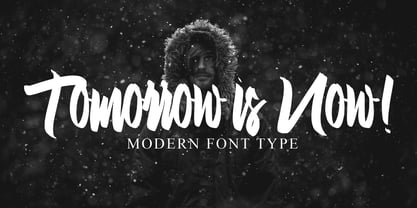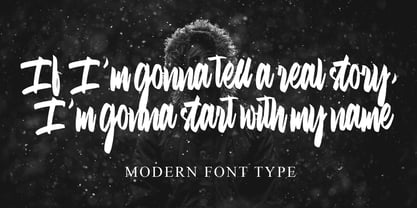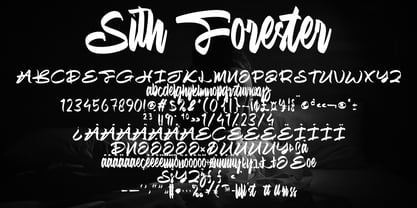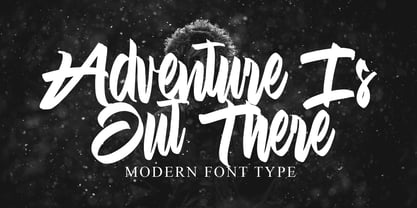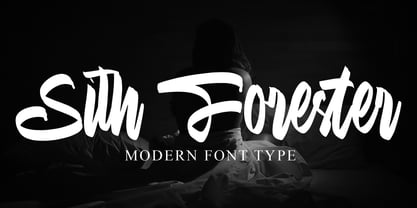
Sith Forester
by Ayska
The Sith Forester Font Family was designed by Dhoni Trihatmoko and published by Ayska. Sith Forester contains 1 styles. More about this family
Dive into the captivating universe of Sith Forester, a remarkably distinctive font that harmoniously merges contemporary refinement with age-old allure of classic calligraphy. Sith Forester radiates an understated elegance, positioning itself as an imperative aesthetic companion for diverse creative quests. Allow Sith Forester to invigorate your blog content, endowing them with enthralling legibility, imbue your digital planner interfaces with a novel edge, transform your event invitations into captivating visual journeys, or infuse a splash of vibrancy into your artisanal greeting cards. Explore the boundless grace and magical hues of Sith Forester, carefully watching as it injects a new vivacity into your carefully curated photo collections or personalized decor items. Sith Forester mirrors the incredible knack of converting mundane digital designs into visually arresting narratives. Enrich your creative tasks with Sith Forester. Marvel at its ability to morph your nascent concepts into awe-inspiring works of art. Succumb to the irresistible charm of Sith Forester's design prowess; transfiguring your artistic imagination into resplendent, luminous masterpieces.
Designers: Dhoni Trihatmoko
Foundry: Ayska